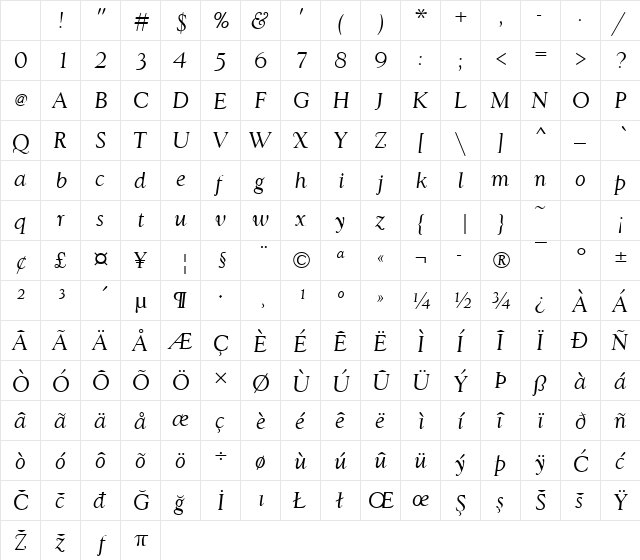
GoudyWtcT is a composed and adaptable typeface that performs quietly and consistently across a wide range of design contexts. The slanted form adds forward momentum and visual energy.